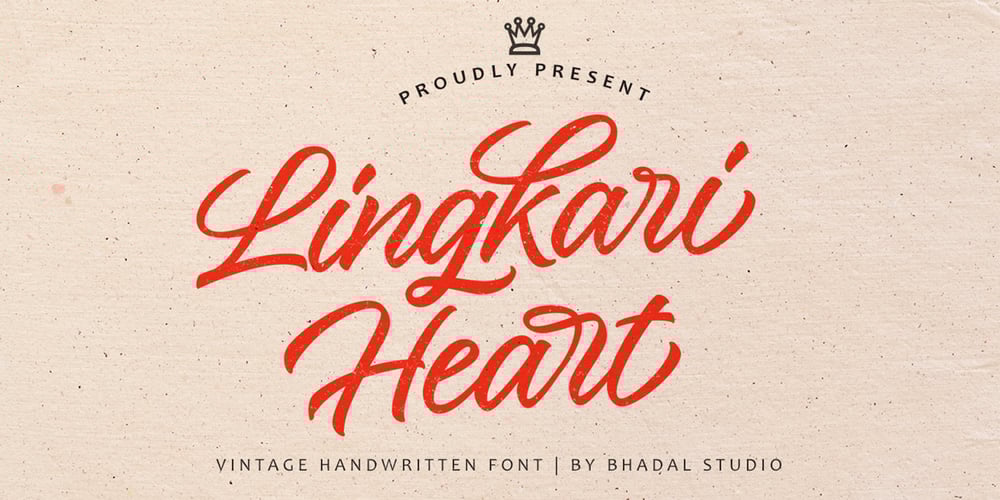
Lingkari Heart Font Family was designed by Caroline Barton and published by Bhadalstudio. Lingkari Heart contains 1 styles and family package options. Lingkari Heart is a new vintage handwritten font. This font is perfect to be applied especially in logos, packaging, headlines, posters, t-shirt/apparel, greeting cards, wedding invitations, and other project.As you can see at the previews, this font has unique swashes that allows you to create beautiful lettering in a snap. Lingkari Heart has many stylistic set alternates that you can choose from.